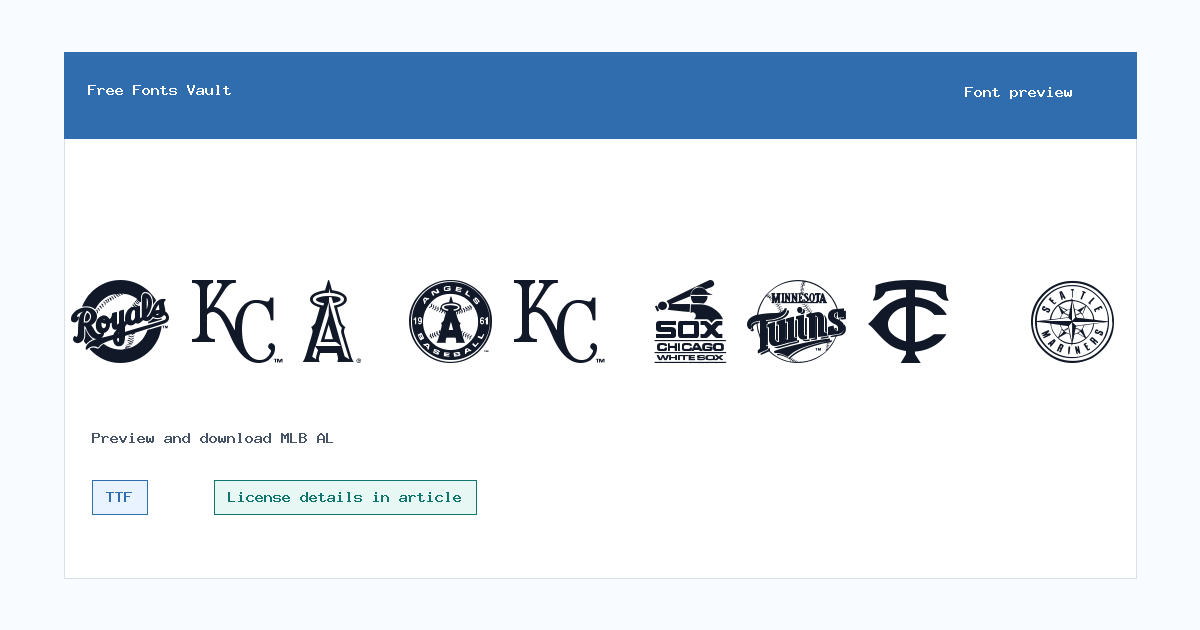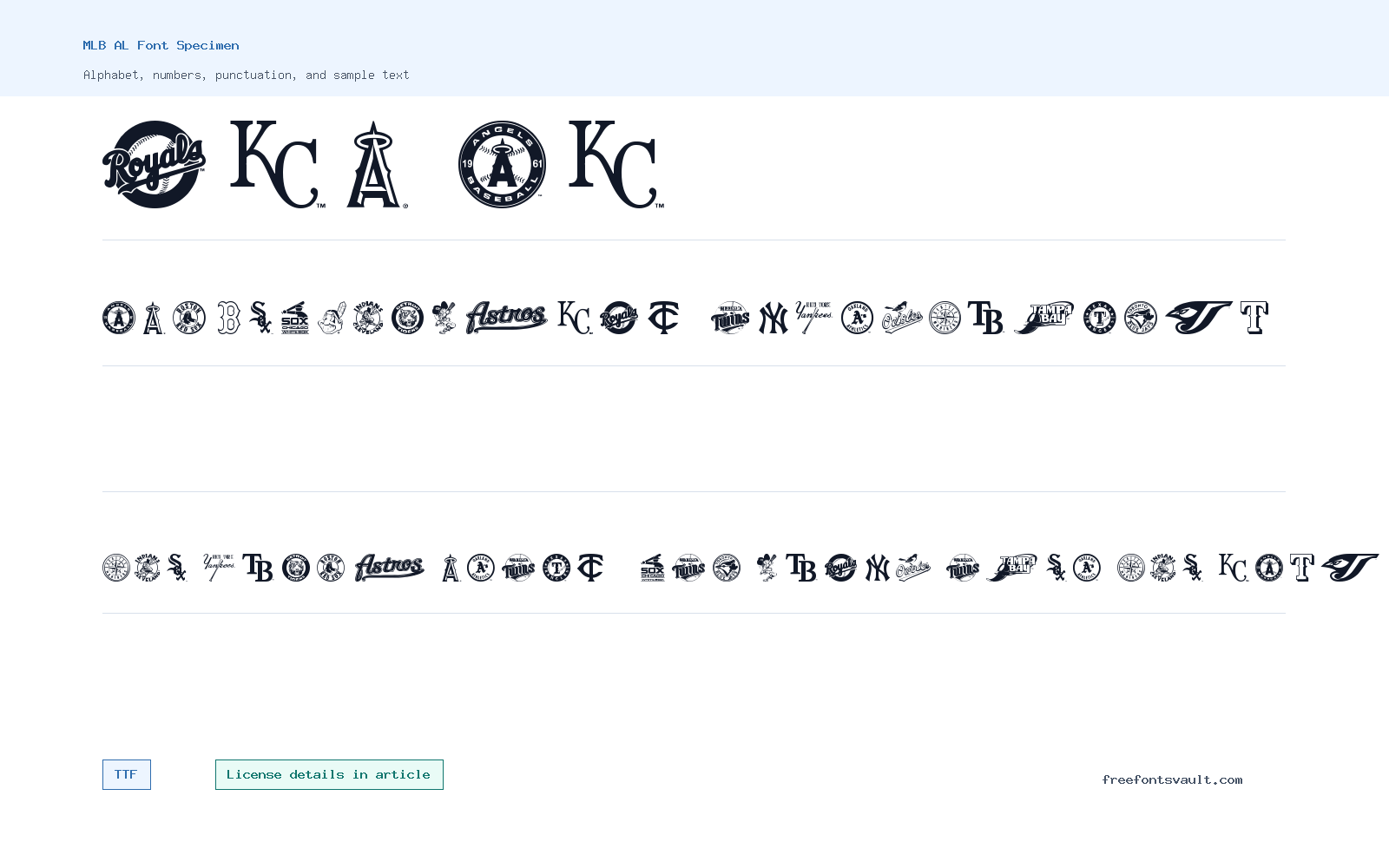
MLB AL
MLB AL font.
MLB AL is a sports-inspired TTF display font credited to DINGBANGMASTER, useful for short words, bold title graphics, and fan-style mockups where the type needs strong impact.
About MLB AL Font
MLB AL is best used as a display font rather than a reading font. The name gives it a clear sports direction, so it can be tested for scoreboard-style headings, badge graphics, game-day posters, fantasy team mockups, thumbnails, and other short layouts where the lettering should feel direct and energetic. Keep the text brief and preview your real wording before downloading.
The available file is a regular TrueType font with normal style and 400 weight. Since only one variant is listed, plan around that one style instead of expecting a full family with bold, italic, or alternate cuts. If the design includes rosters, schedules, descriptions, or captions, pair MLB AL with a simpler readable font and let this face handle the title or accent text.
- Sports-inspired display tone for short titles and badges
- Credited to DINGBANGMASTER
- One listed 400-weight style for straightforward previewing
- Works best at larger sizes with simple supporting layout
- Sports-style posters, badges, thumbnails, and fan graphics
- Event headings, scoreboard-inspired words, and bold social titles
- Fantasy team mockups and non-official personal artwork
- Short display lines where a strong athletic feel is useful
- Pairing with a plain sans-serif for schedules and captions
Use MLB AL for short, high-impact wording. Test uppercase letters, numbers, and spacing in the preview, then use a simpler companion font for paragraphs, schedules, captions, and smaller details.
What is MLB AL best for?
It works best for short display text such as sports-style posters, badges, thumbnails, event headings, and fan mockups.